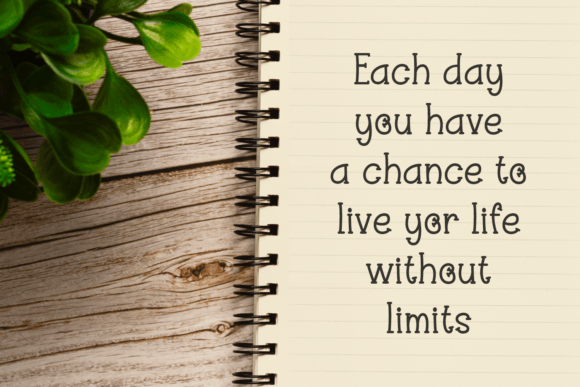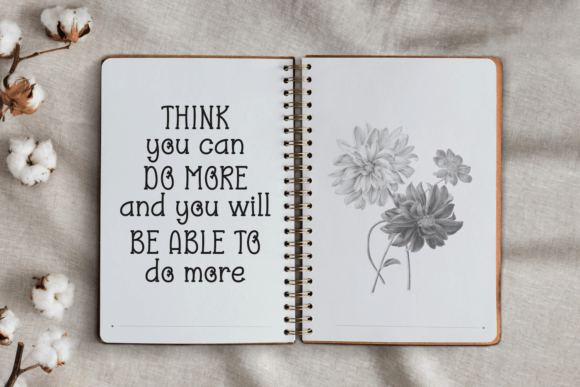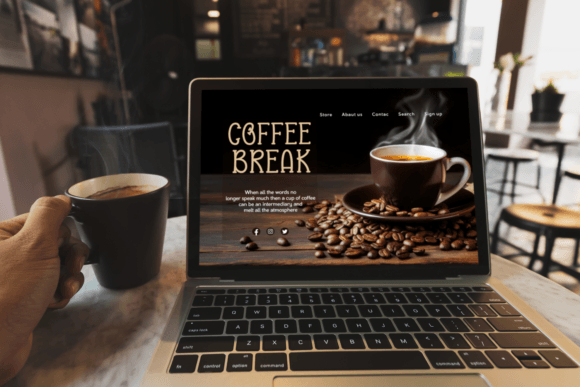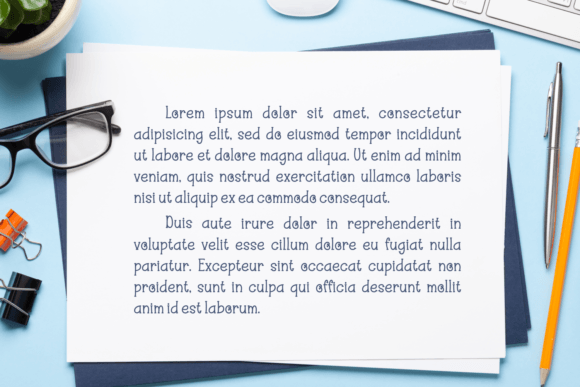
Introduction to Simple Diary Font
Remember that moment when you’re working on a creative project, and you need the perfect font to bring your vision to life? For many designers, that moment is a search for a font that exudes elegance, sophistication, and a personal touch. Enter the Simple Diary Font – a beautiful, handwritten serif font that has become a go-to design resource for creatives worldwide.
With its clean, legible letterforms and handwritten feel, the Simple Diary Font is a versatile design tool that can be used in a wide range of contexts, from editorial designs and branding to personal notes and invitations. Whether you’re working on a high-quality project that requires a transparent background or a free download for a personal touch, this font is sure to deliver.
Key Features of Simple Diary Font
- Unique Handwritten Style: Simple Diary Font features a beautiful, elegant handwriting style perfect for creative projects, journals, and design resources.
- Transparent Background Option: The font includes a transparent background option, allowing for easy overlay and customization on any design.
- High-Quality Design: This font is designed with high-quality graphics, ensuring crisp and clear text output at any resolution.
- Perfect for Journaling and Creative Projects: Simple Diary Font is designed specifically for journaling, scrapbooking, and other creative projects where a personal touch is essential.
- High Resolution: The font is optimized for high-resolution printing and digital displays, ensuring clear and legible text at any size.
Honest Review: Simple Diary Font
I recently came across the Simple Diary Font, and I must say, it’s a great addition to any designer’s toolkit. This free download is perfect for those looking to add a touch of elegance to their creative project.
Here are some of the things that work well for me: ✨ High-quality design, ✨ easy to read, and ✨ compatible with various design software.
- Transparent background: This allows for seamless integration into any design, making it a great resource for designers.
- High quality: The font is crisp and clear, making it perfect for print and digital use.
However, I did encounter a few limitations: ⚠️ limited character set, ⚠️ not suitable for complex designs.
Overall, I’m impressed with the Simple Diary Font. It’s a great design resource for those looking to add a touch of sophistication to their work. While it may not be suitable for every project, it’s definitely worth considering for your next creative endeavor.
Simple Diary Font is a high-quality design resource that can be used for a variety of creative projects. To get the most out of it, use it in conjunction with other design elements such as images and graphics. You can also use it to create a consistent brand identity across multiple platforms.
Simple Diary Font is commonly used for creating digital journals, planners, and scrapbook pages. It’s also a popular choice for bloggers and writers who want to add a touch of elegance to their writing. With its transparent background and high-quality design, it’s the perfect design resource for any creative project.